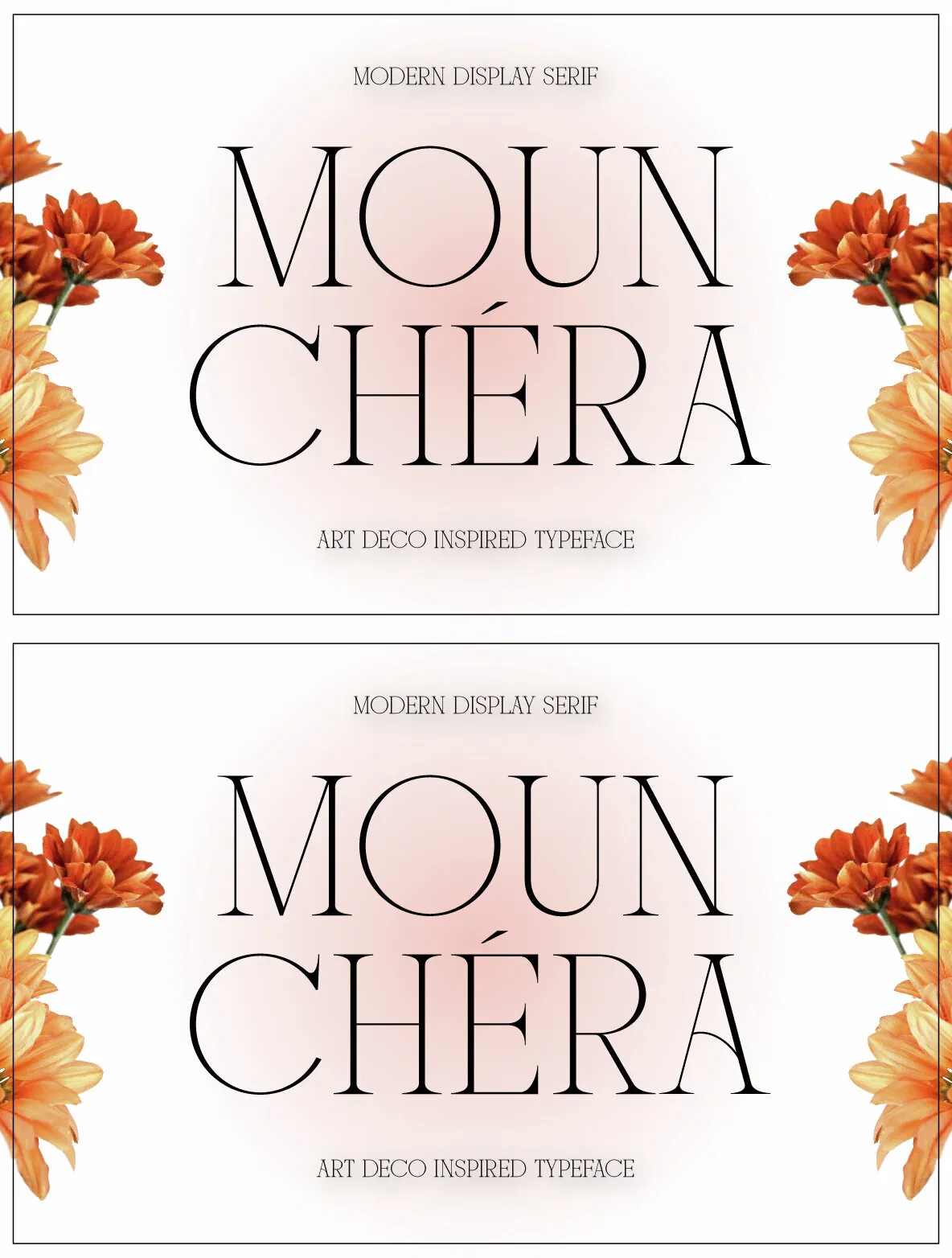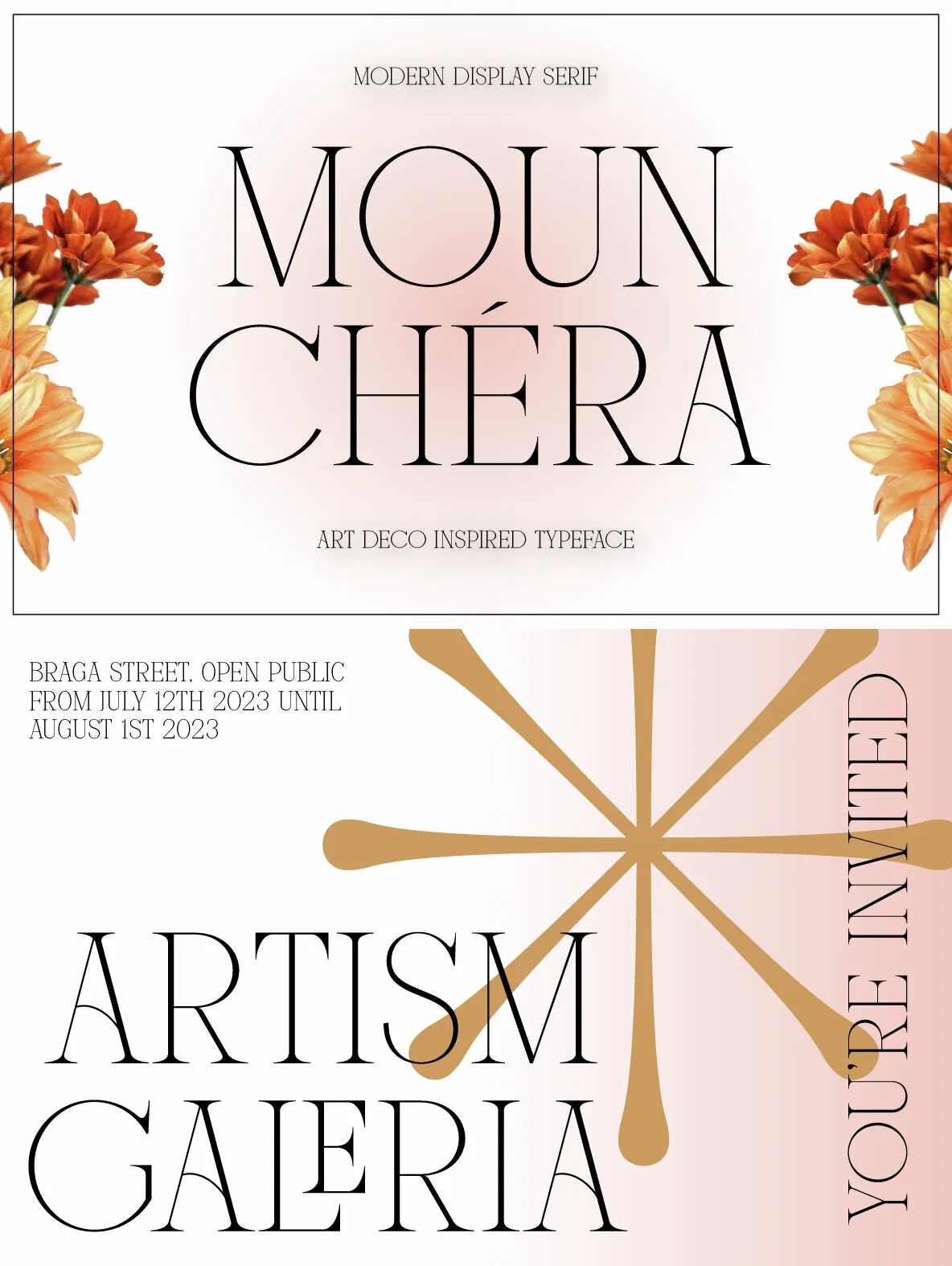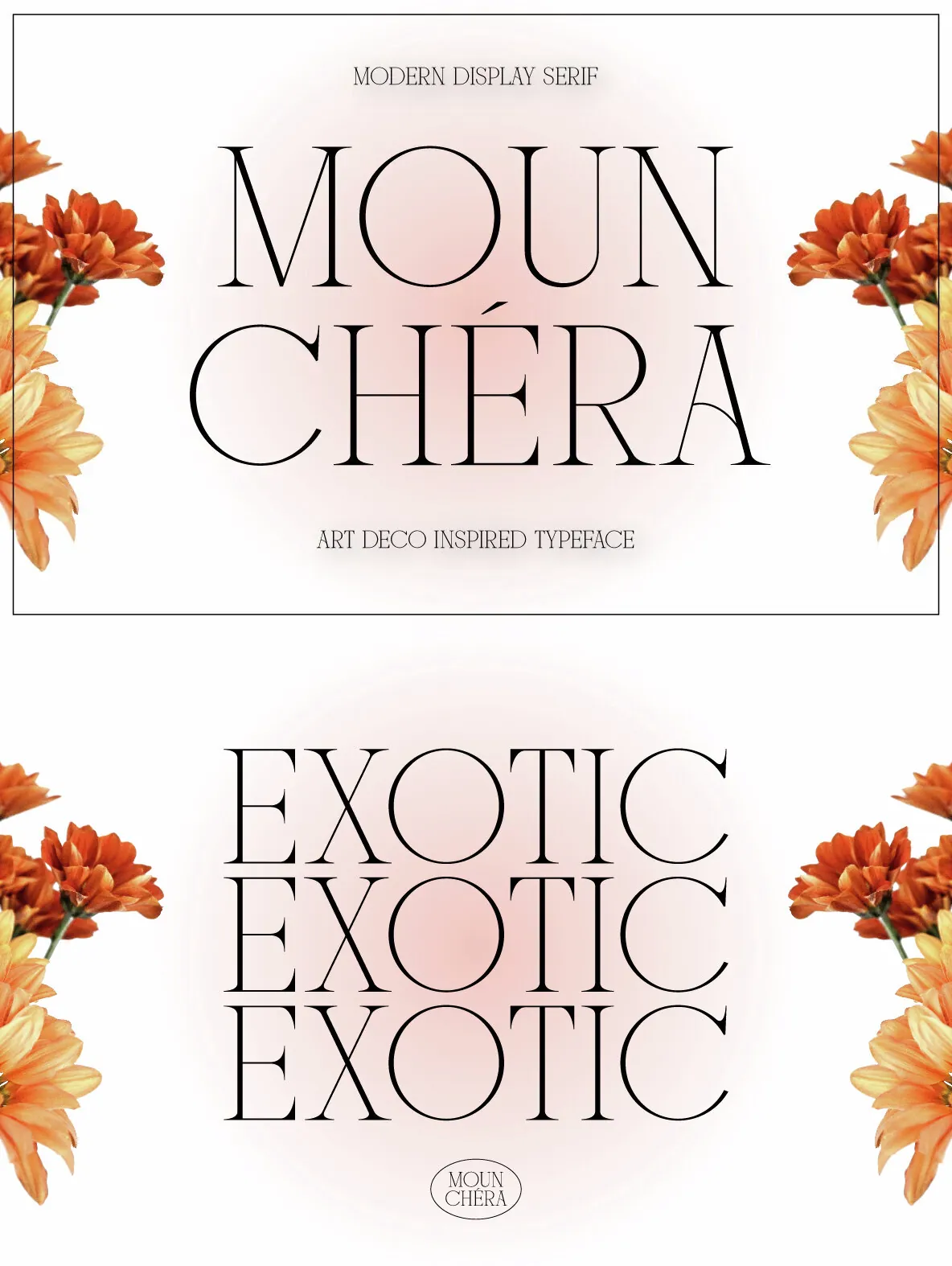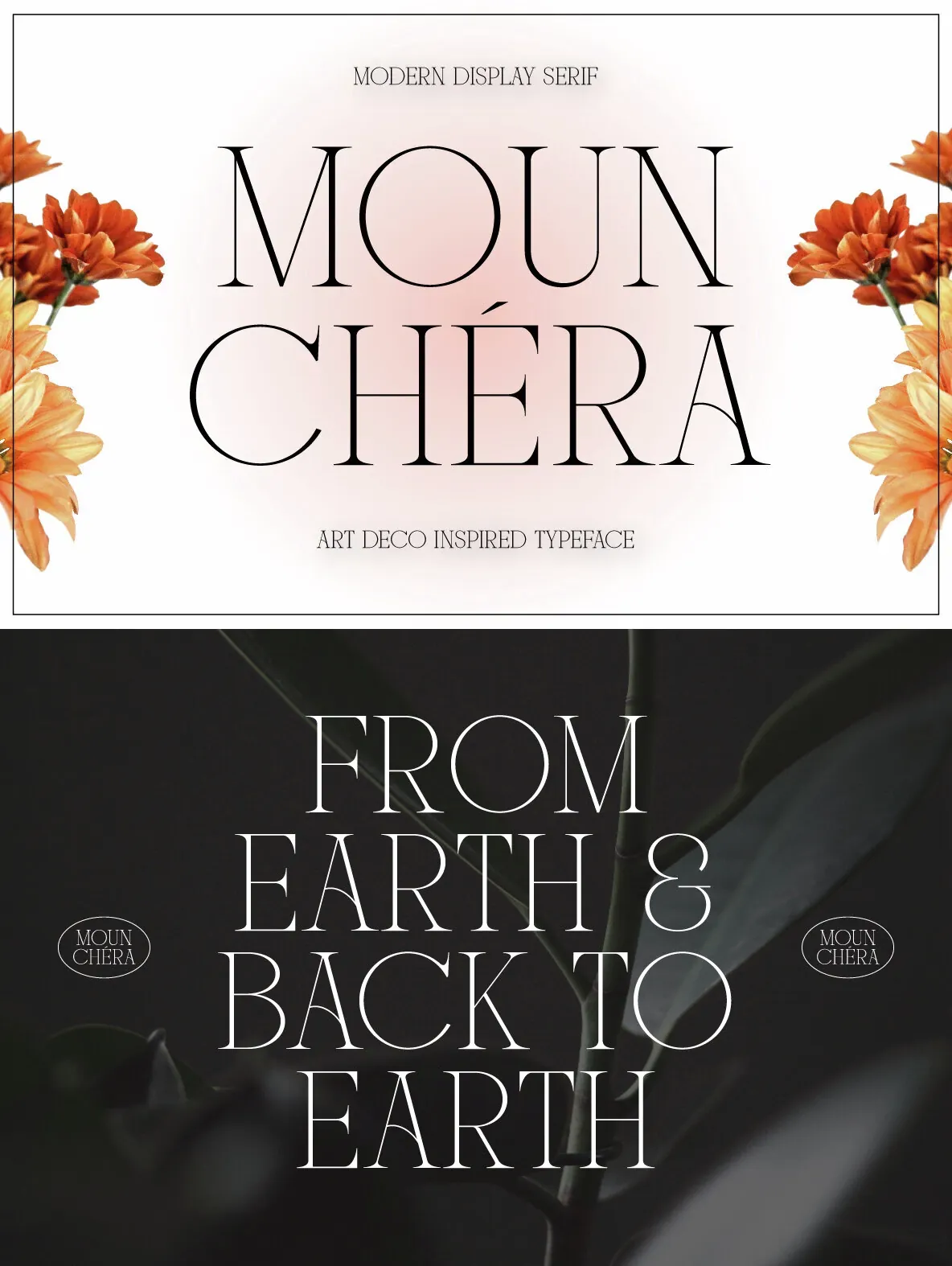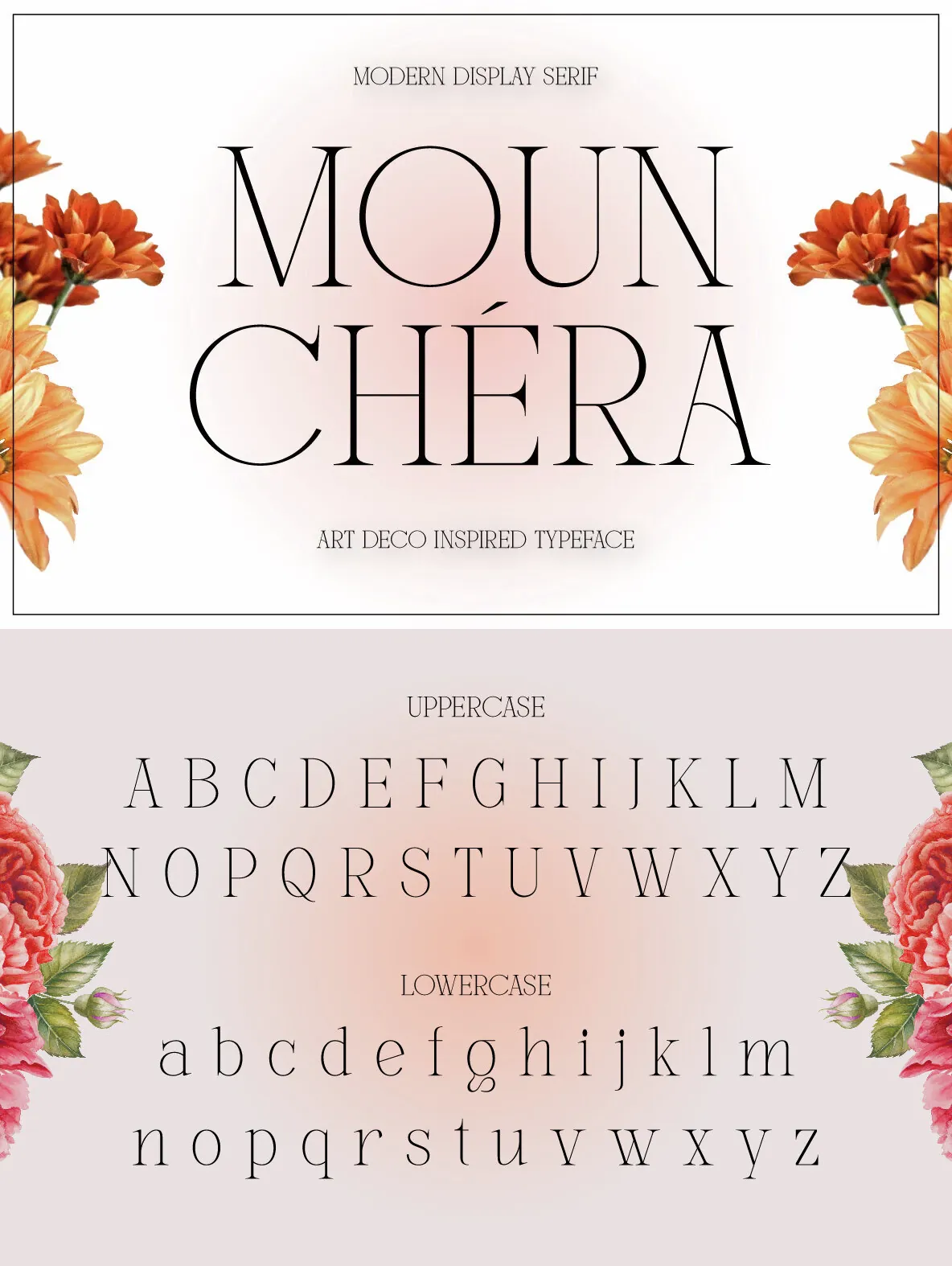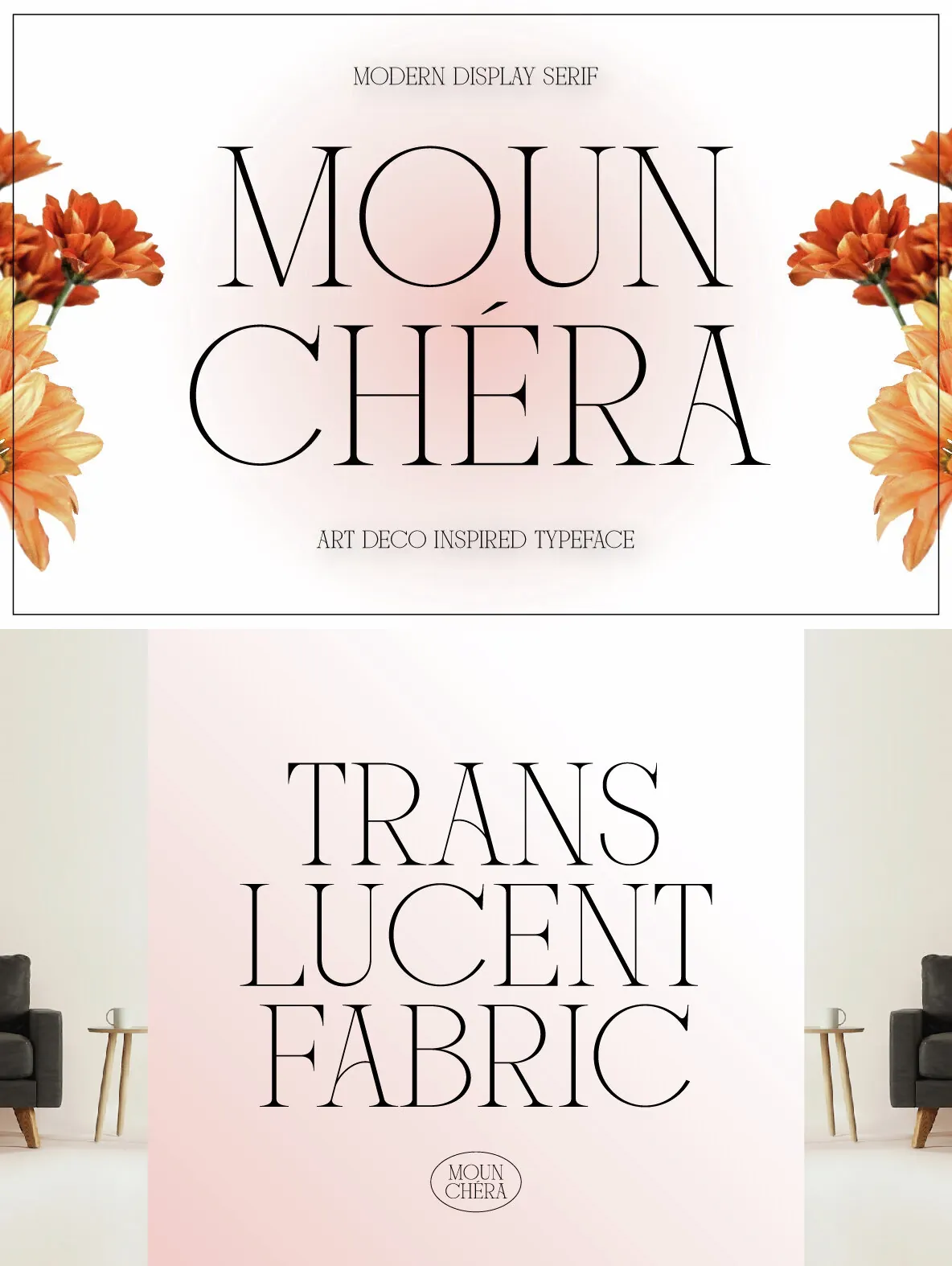
Mounchera Font
Mounchera is a modern and luxury serif font inspired by the art deco style and includes discretionary ligatures and stylistic alternates. Perfectly match the contemporary design theme for many projects such as logotypes, corporate branding, poster design, business cards, headline cover, and more.
FONT FEATURES
304 Glyphs
Additional Accents
68 Languages
Kerning
Ligatures
Alternates